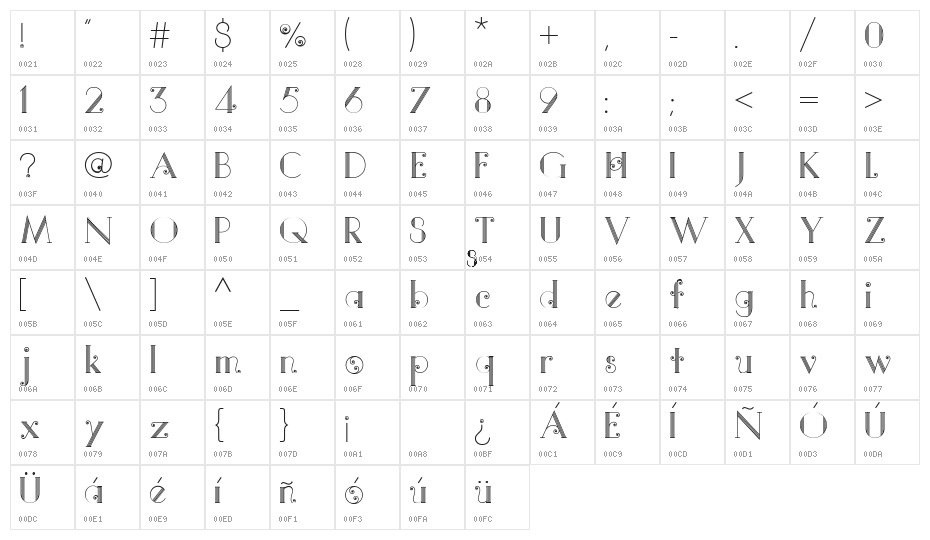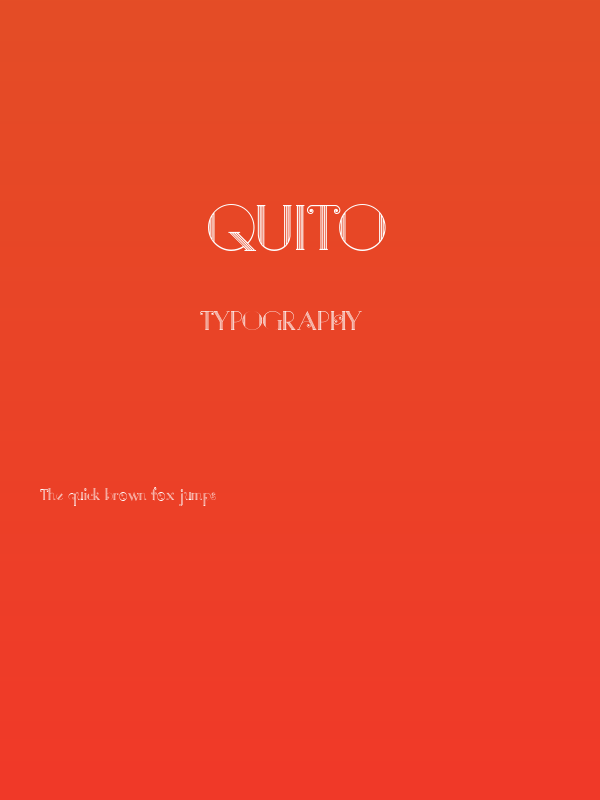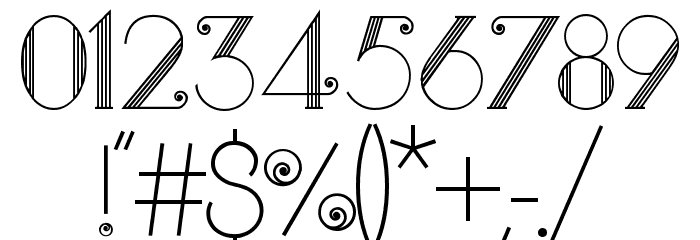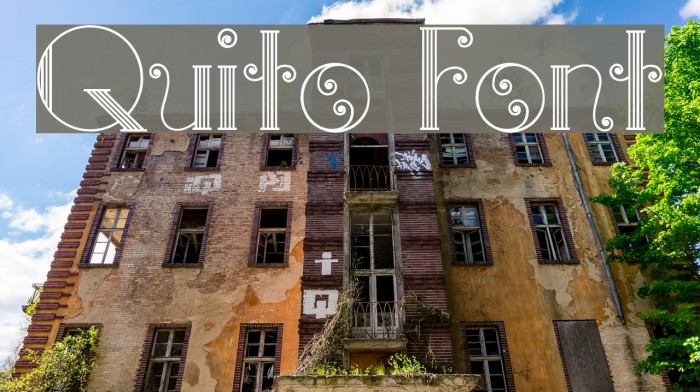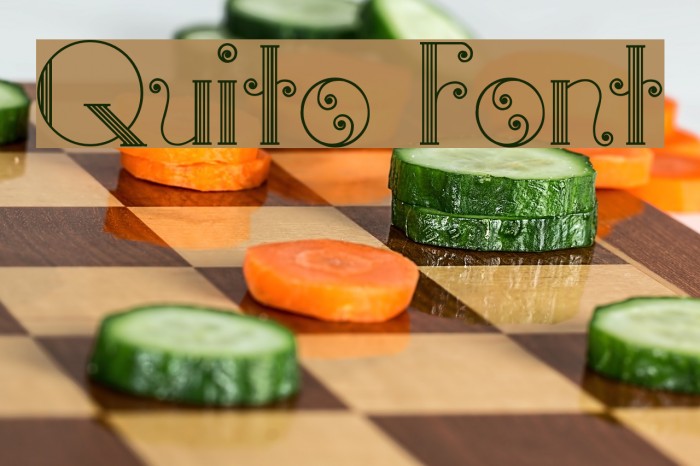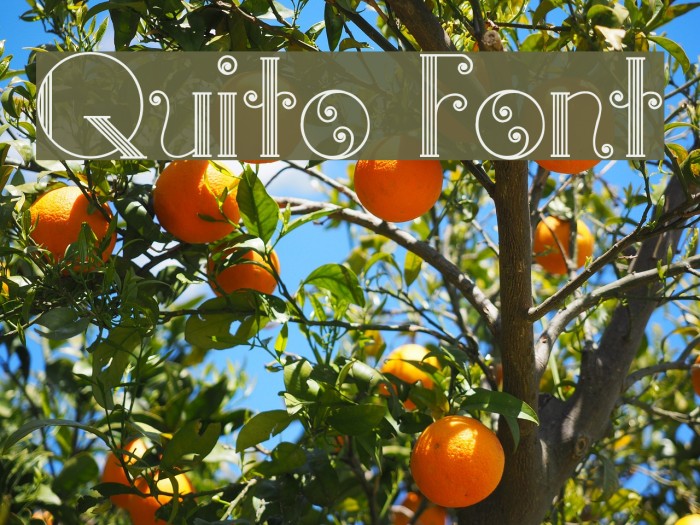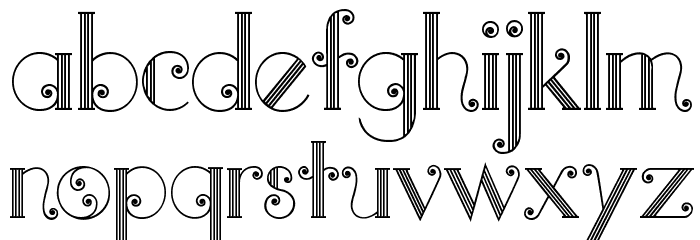
Quito Font
Quito Description
This font features a unique and decorative style with a strong emphasis on vertical lines and curls. Each character is intricately designed with parallel lines that create a sense of depth and texture, giving it a sophisticated and artistic appearance. The uppercase letters are bold and striking, while the lowercase letters maintain a playful yet elegant look. Numbers and special characters follow the same decorative theme, making the font versatile for various creative applications. The overall design is both modern and vintage, combining classic elements with a contemporary twist.